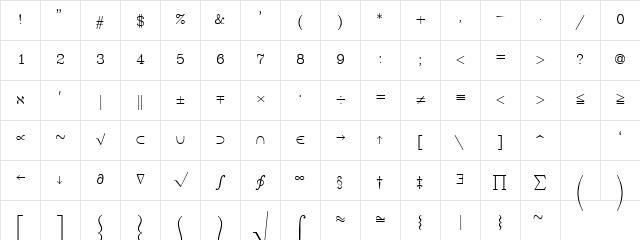
SWMath Regular Free Font
SWMath Regular
Design Context for SWMath
SWMath is a composed and adaptable typeface that performs quietly and consistently across a wide range of design contexts.